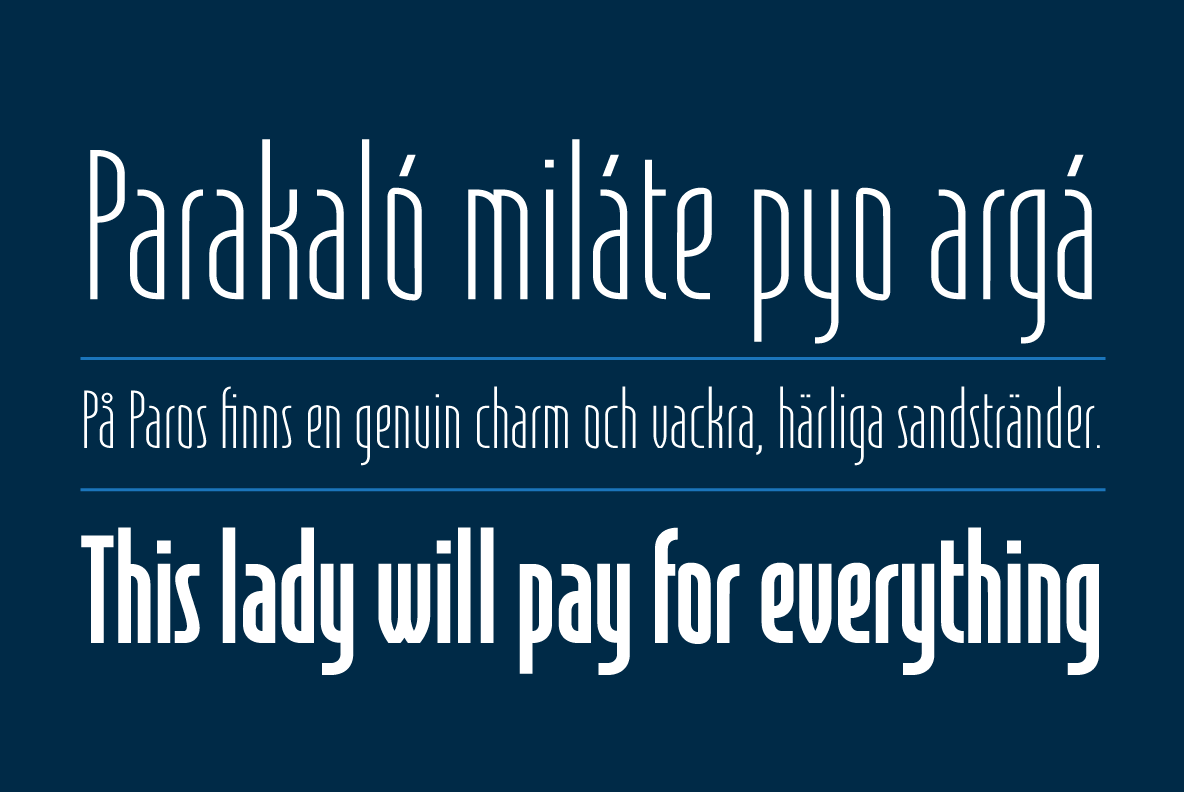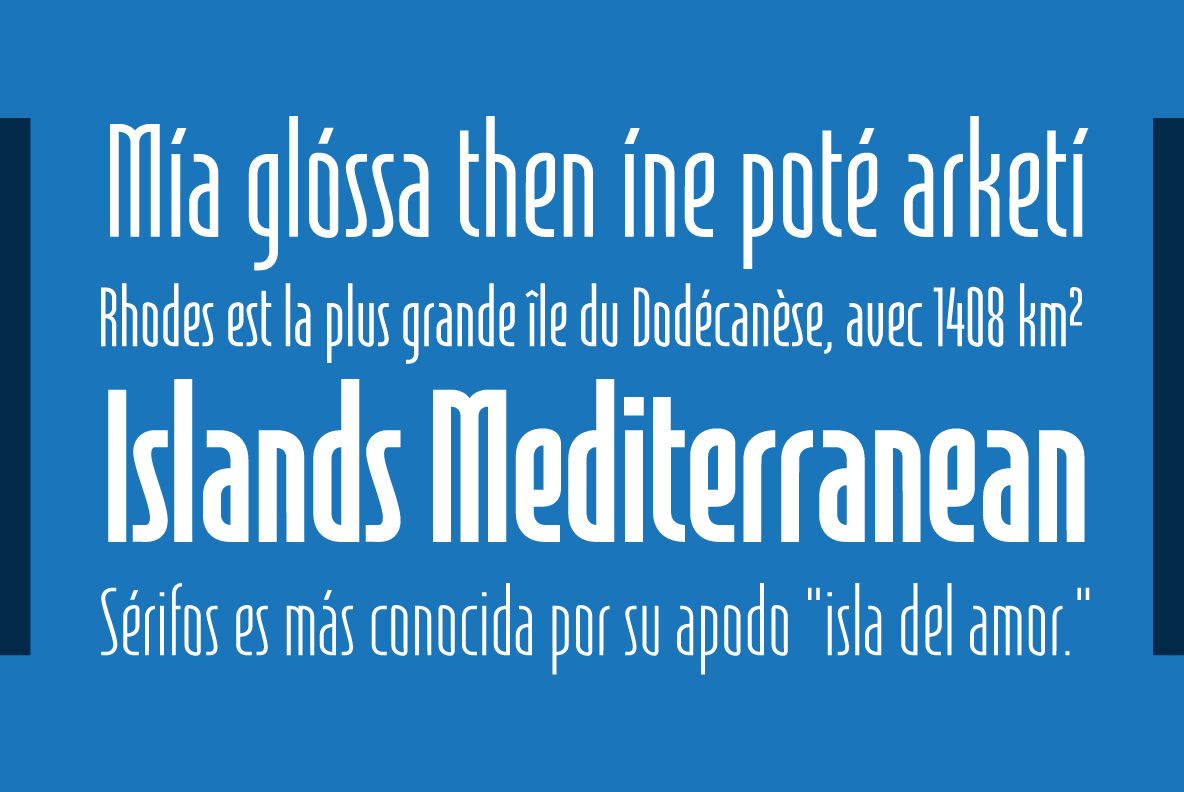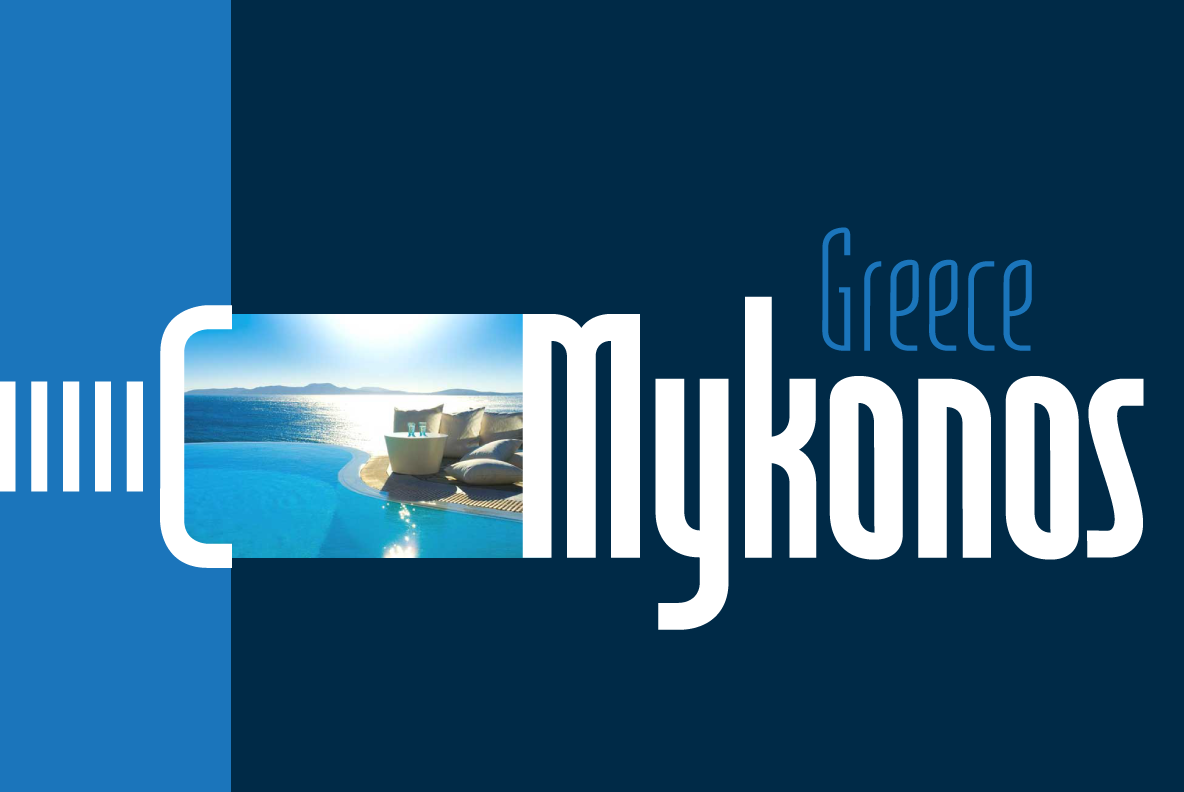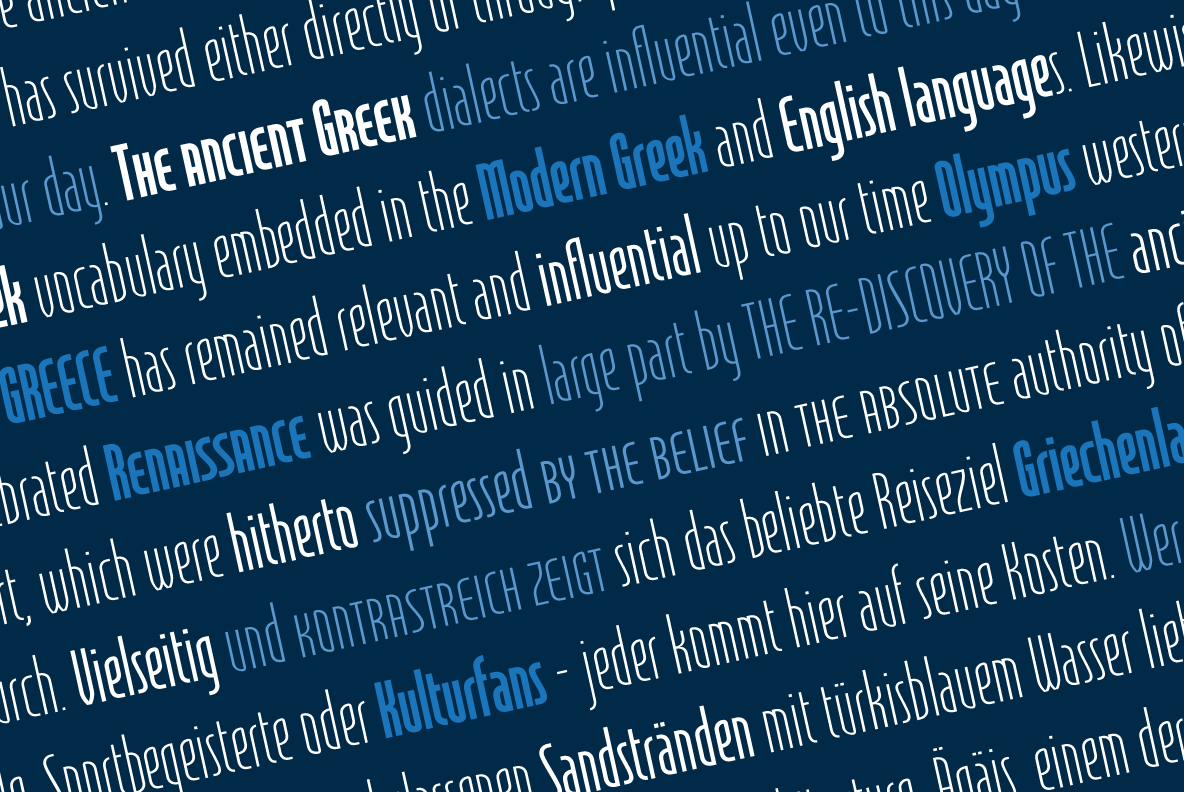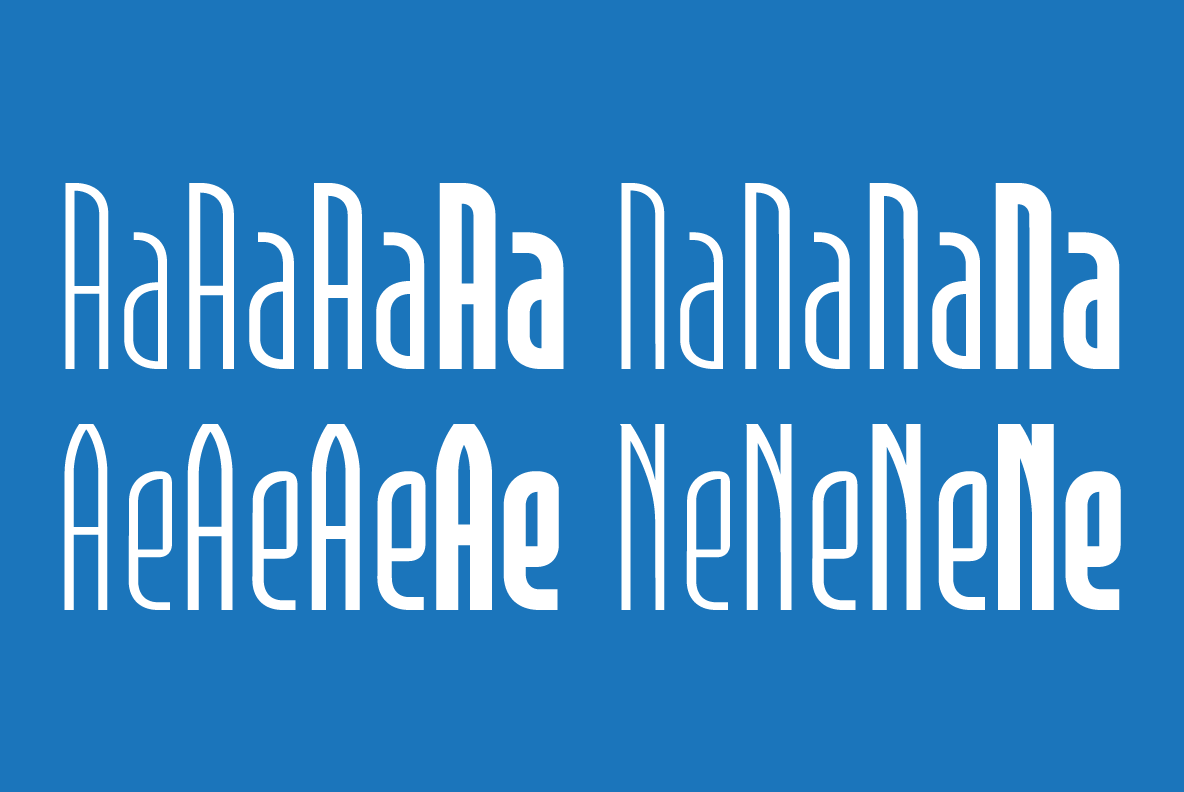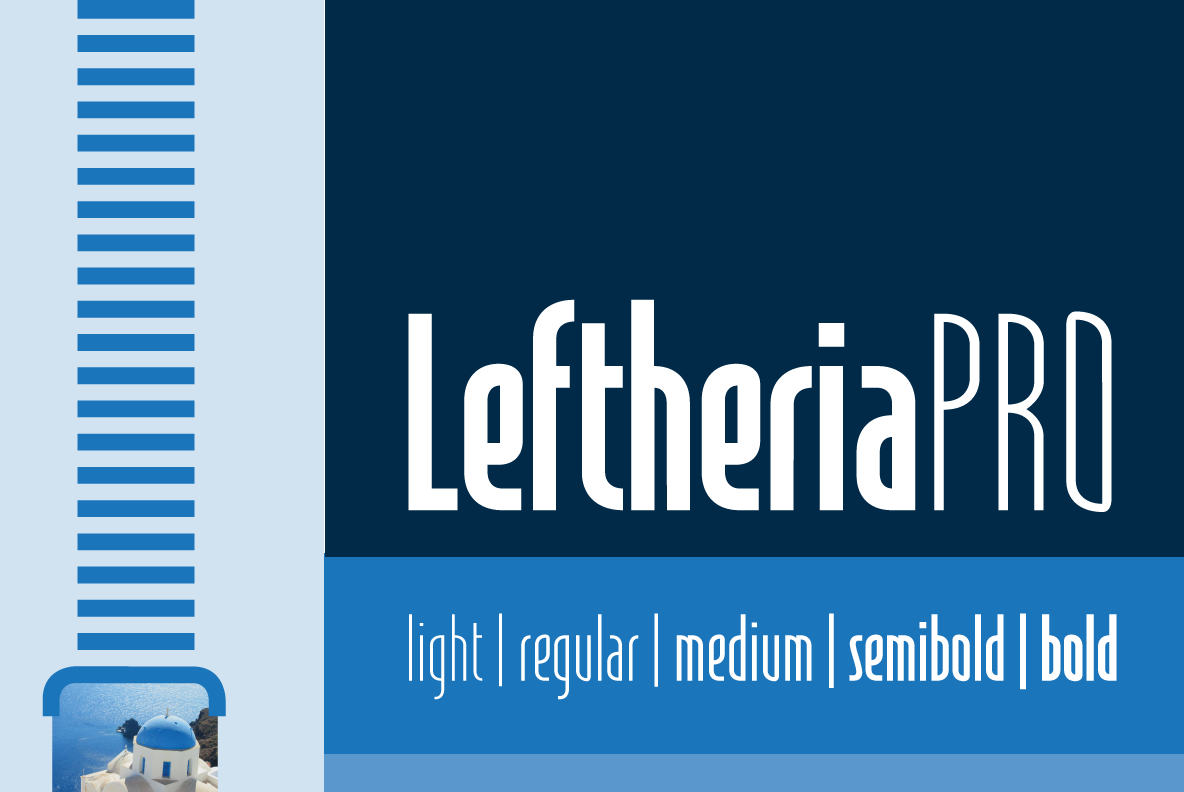
Introduction to LeftheriaPRO Font
Have you ever stared at a blank page, trying to find the perfect font to bring your creative project to life? The blank page can be intimidating, but the right font can be the spark that sets your imagination ablaze. For designers, finding the perfect font can be a game-changer, and that’s exactly what the LeftheriaPRO Font offers.
Developed with precision and care, the LeftheriaPRO Font is a high-quality design resource that’s available for free download. Its unique structure, inspired by the Ionian order of Greek columns, gives it a timeless and elegant feel that’s perfect for a wide range of creative projects. Whether you’re working on a logo, brochure, or website, the LeftheriaPRO Font is sure to add a touch of sophistication and style.
Key Features of LeftheriaPRO Font
- High-quality, professional font suitable for various creative projects, including logos, branding, and design materials.
- Features a transparent background, making it easy to use with any design element or image.
- Includes a large character set, supporting multiple languages and making it an excellent resource for international design projects.
- Designed with precision and attention to detail, ensuring crisp and clear typography at high resolutions (up to 300 DPI).
- Perfect for designers, artists, and creatives looking for a high-quality font to elevate their design projects and stand out in the industry.
Honest Review: LeftheriaPRO Font
As a designer, I’m always on the lookout for high-quality design resources that can elevate my creative projects. The LeftheriaPRO Font is one such resource that has caught my attention. With its sleek and modern design, it’s perfect for anyone looking to add a touch of sophistication to their work.
Here are some of the things that I like about the LeftheriaPRO Font:
- ✨ High-quality design: The font is well-crafted and has a professional finish.
- ✨ Versatile: It’s suitable for a wide range of creative projects, from logos to brochures.
- ✨ Transparent background: This makes it easy to work with and ensures seamless integration with other design elements.
However, there are a few limitations that I’ve noticed:
- ⚠️ Limited character set: The font doesn’t come with a comprehensive character set, which may limit its usability in certain projects.
Overall, I’m impressed with the LeftheriaPRO Font. It’s a solid design resource that can add value to any creative project. While it has some limitations, it’s definitely worth considering for designers who want a high-quality font with a transparent background.
Tips for Getting the Most Out of LeftheriaPRO Font
Here are some tips for getting the most out of LeftheriaPRO Font:
– Use it for your next creative project, such as a logo or branding material.
– Take advantage of its transparent background to create visually appealing designs.
– Experiment with different font sizes and styles to add variety to your design.
Common Use Cases for LeftheriaPRO Font
Here are some common use cases for LeftheriaPRO Font:
– Logos and branding materials
Yes, the LeftheriaPRO Font has a transparent background, making it ideal for use in designs that require a high level of customization and flexibility. You can easily overlay the font on top of other design elements without worrying about background clutter.